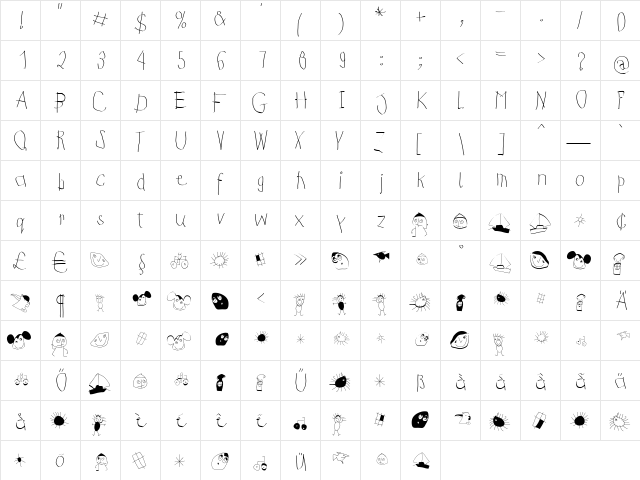
KidsFirstPrintFont Regular
Design Context for KidsFirstPrintFont Typeface
KidsFirstPrintFont has an approachable, lighthearted character — its loose, expressive forms are well-suited to children's content, casual branding, and fun-first design.